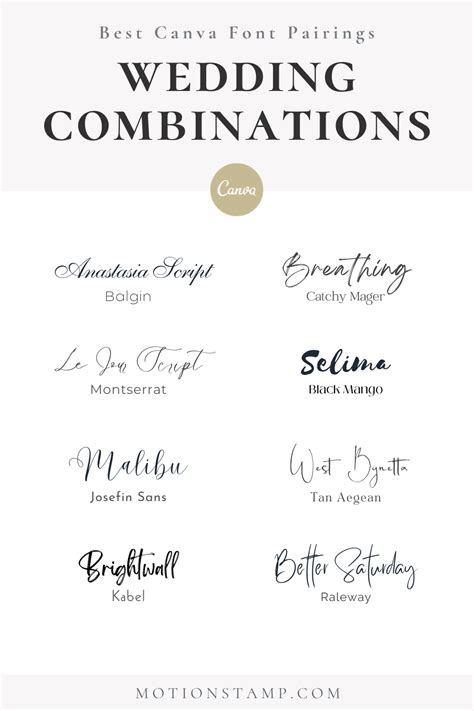
Wedding Font Combinations. Oftenly a curvy, elegant text works well with a more structured font. A cursive font paired with a sans serif.
Web types of fonts to consider for your invitations script fonts. They are excellent for digital invitations but also the most legible,” says kentris. Web 25 free wedding font combinations to give your special day a touch of elegance 01. This font pairs with most others on this list and can work well on wedding invitations. Oftenly a curvy, elegant text works well with a more structured font. Web one of the easiest ways to make a great font combination is use opposite fonts. A cursive font paired with a sans serif. Montserrat + great vibes this wedding invite font combination is a classic; Great vibes + montserrat this is a classic wedding invite combination: For example, you can mix script fonts for the names of the bride and.
For example, you can mix script fonts for the names of the bride and. For example, you can mix script fonts for the names of the bride and. Oftenly a curvy, elegant text works well with a more structured font. Gravura + perpetua penned by the. Web types of fonts to consider for your invitations script fonts. This font pairs with most others on this list and can work well on wedding invitations. A cursive font paired with a sans serif. They are excellent for digital invitations but also the most legible,” says kentris. Great vibes + montserrat this is a classic wedding invite combination: Web 15 wedding font pairings made for each other 1. Kenao sans serif kenao sans serif is a stylish and elegant font that exudes wedding energy and can add a touch of sophistication.